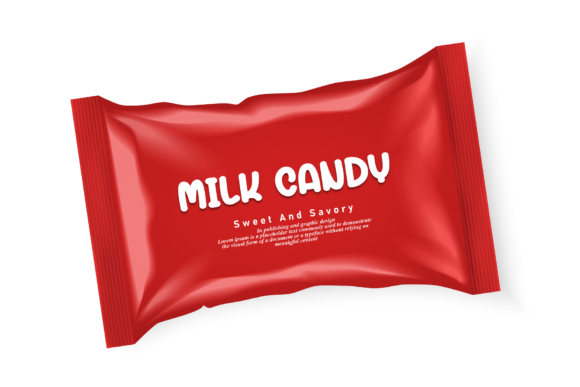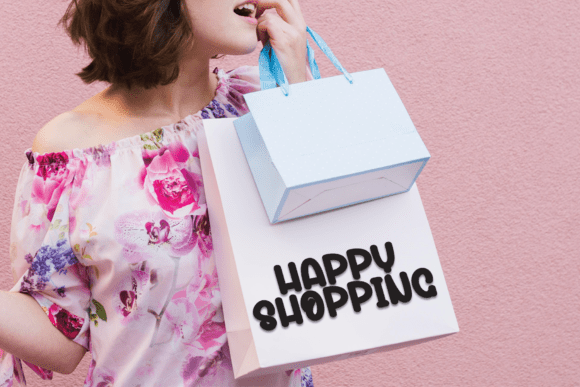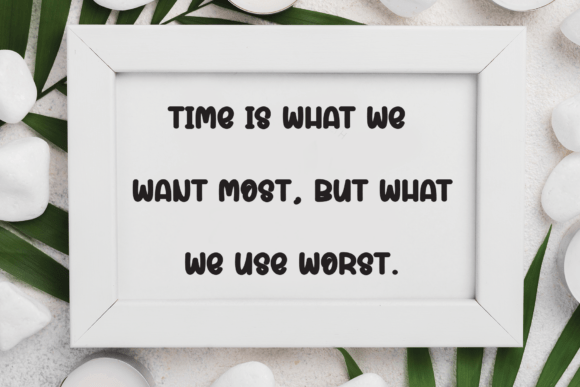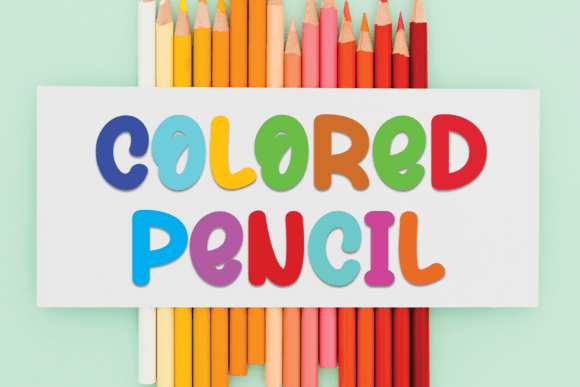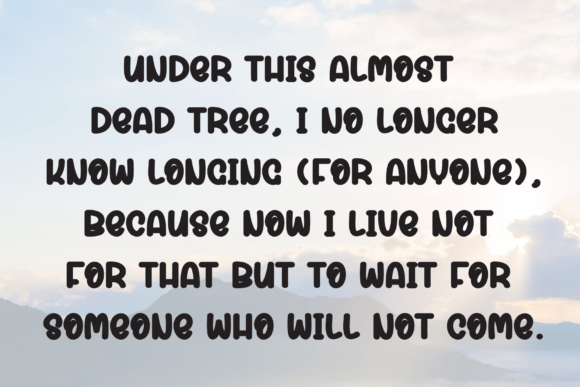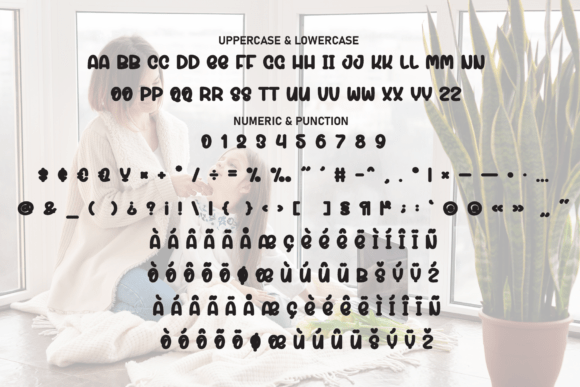
When a Font Speaks Louder Than Words
Imagine you’re working on a project that needs to grab attention, whether it’s a poster for a music festival or a branding campaign for a new business. You’re scrolling through font options, and suddenly, you stumble upon a typeface that screams “notice me!” – Home Mother Font is that game-changing discovery.
This bold, modern font is designed to make a statement, with its thick strokes and strong presence that demands attention. Whether you’re a seasoned designer or a creative just starting out, Home Mother Font is an invaluable addition to your toolkit. Its versatility and high-impact design make it perfect for a wide range of projects, from promotional materials to editorial layouts.
Key Features of Home Mother Font
- Font Family: Home Mother Font is a sans-serif font family designed for use in various digital applications.
- Unique Characteristics: Features a modern and clean design, with subtle rounded edges and open apertures for improved legibility.
Designer Review: Home Mother Font
I recently had the chance to work with the Home Mother Font, and I must say it’s a mixed bag. On the one hand, here are some things that work well:
- ✨ Elegant and vintage feel: The font has a beautiful, nostalgic quality to it that’s perfect for design projects that need a touch of warmth.
- ✨ Wide range of weights: The font comes in a variety of weights, from light to bold, which makes it incredibly versatile and easy to use.
- ✨ Great for long blocks of text: The font is designed to be highly legible, even in long blocks of text, making it perfect for articles, blog posts, and other content-heavy design projects.
- ⚠️ Limited character set: The font’s character set is a bit limited, which can make it difficult to use for projects that require a wide range of special characters or languages.
- ⚠️ Not ideal for small text: While the font is great for long blocks of text, it can be a bit too chunky for small text sizes, which can make it difficult to read.
Overall, I’d say the Home Mother Font is a solid choice for design projects that need a warm, vintage feel. While it may have some limitations, it’s a great option for designers who want a high-quality font that’s easy to use.
Tips for Getting the Most Out of Home Mother Font
Use Home Mother Font for titles, headings, and emphasis. It’s ideal for creating a warm and inviting atmosphere. Experiment with different font sizes and colors to achieve the desired effect.
Home Mother Font is perfect for:
- Blogging and content creation
- Food and recipe design
- Home decor and interior design
- Wedding and event planning
Compared to Home Mother Font, Great Vibes has a more refined and polished look, making it a great choice for high-end designs. However, it may not be as versatile as Home Mother Font, which can be used in a wide range of projects.
Compared to Home Mother Font, Lato has a more contemporary and sleek look, making it a great choice for modern designs. However, it may not be as suitable for creative projects that require a more playful and whimsical feel.